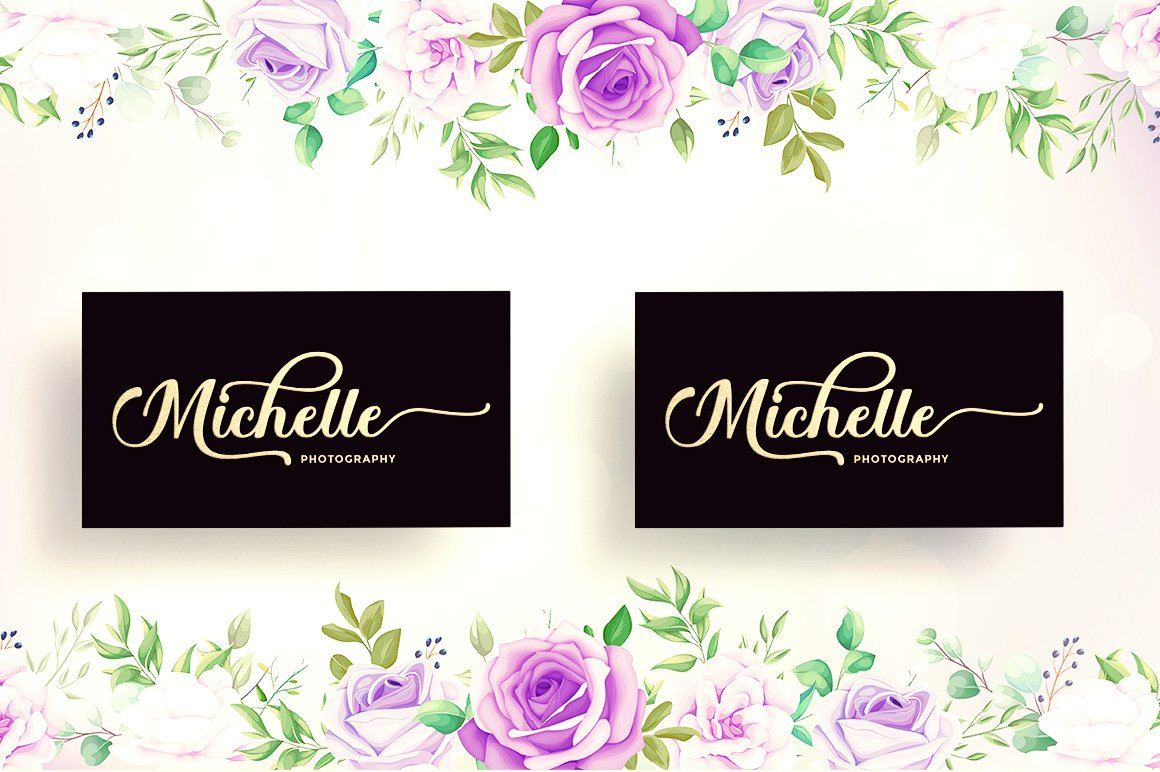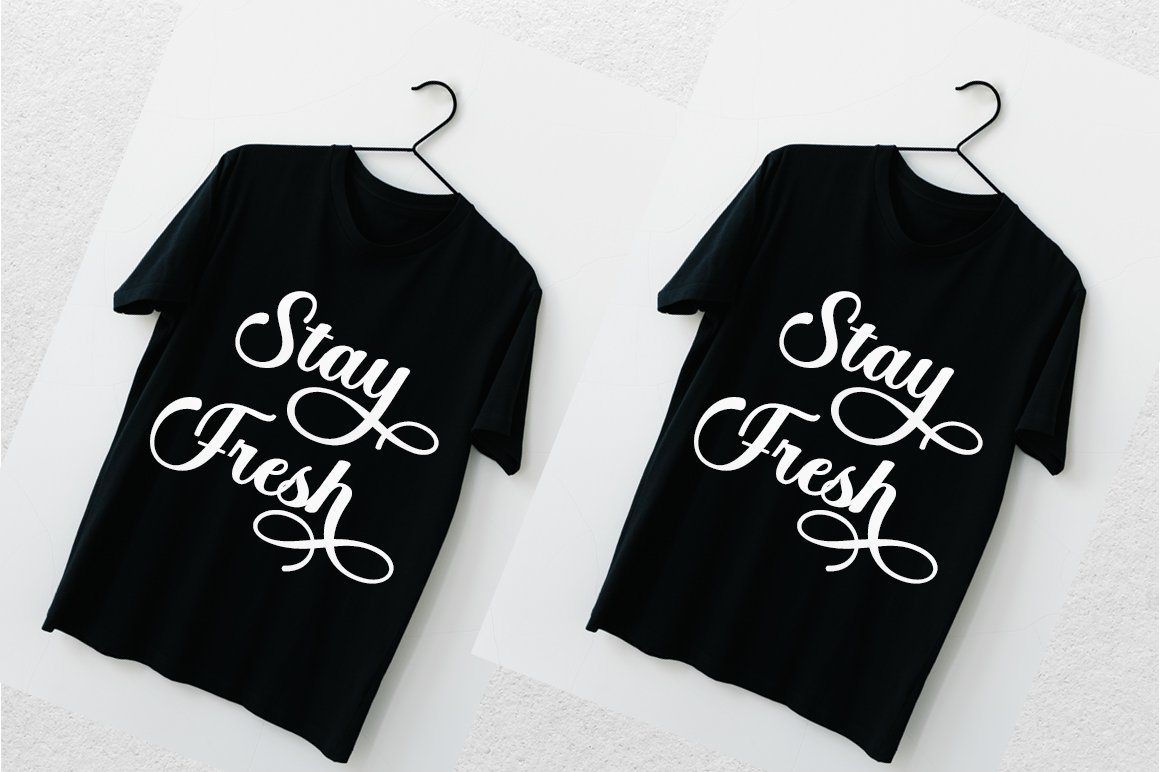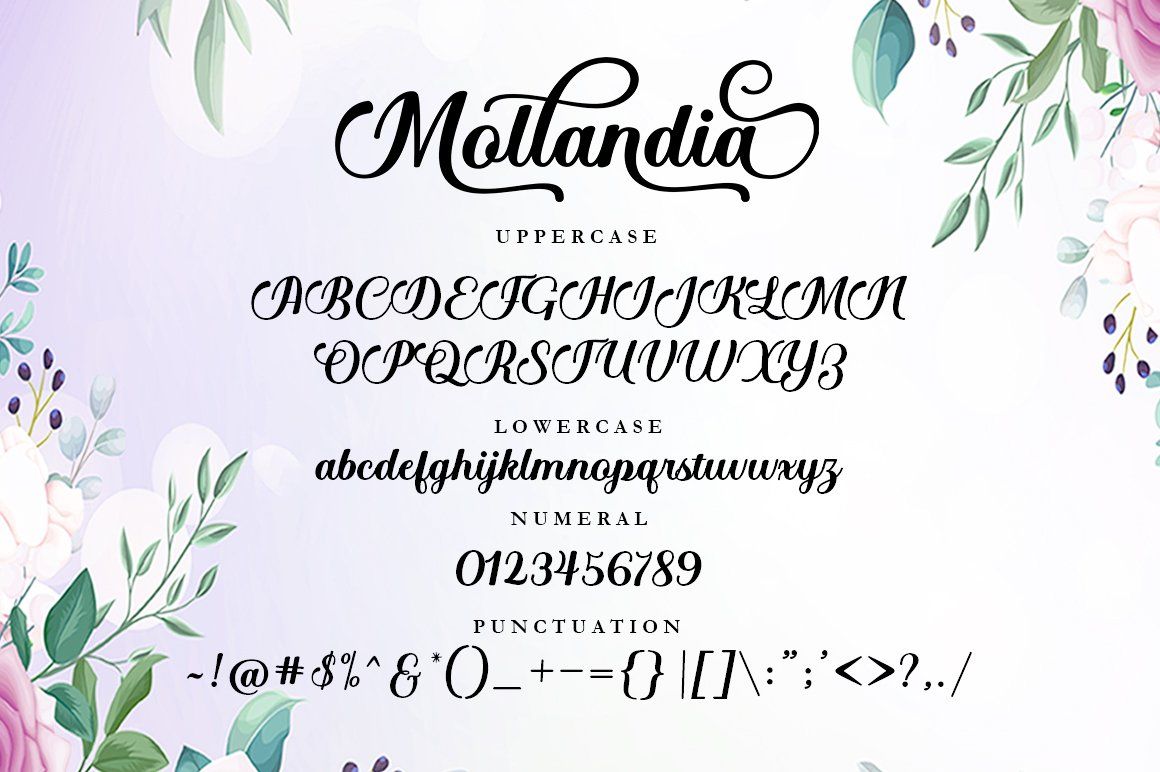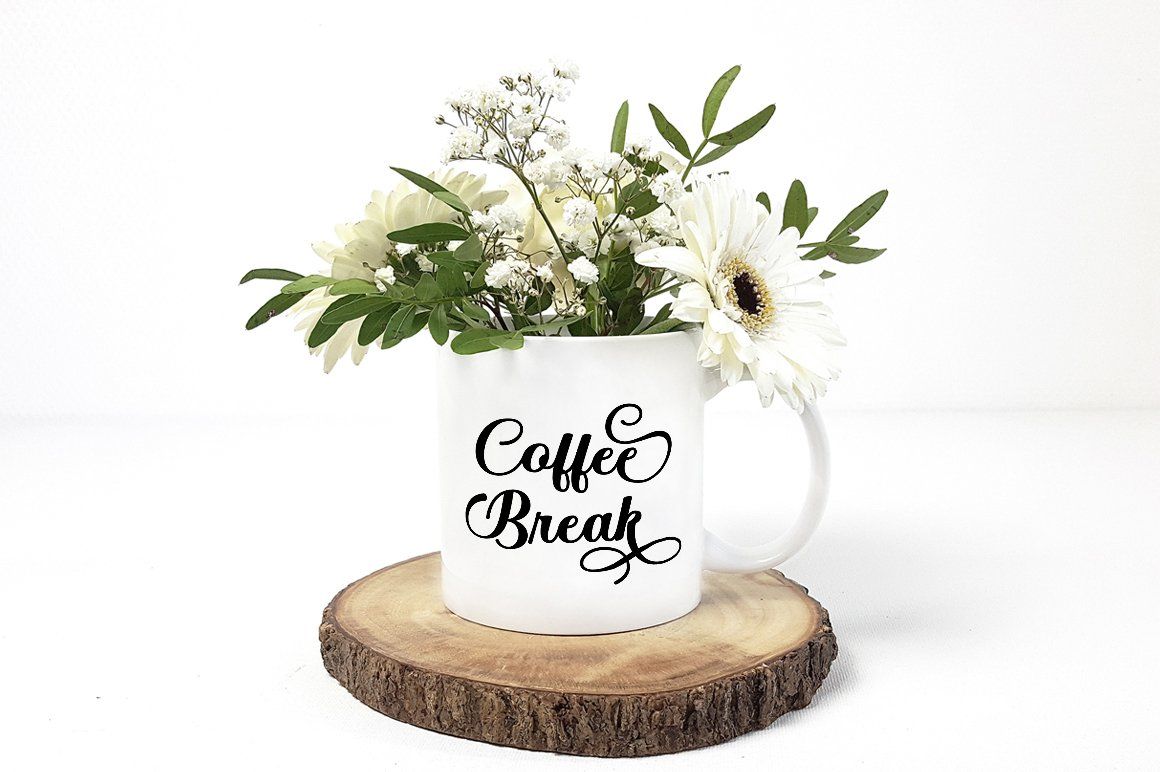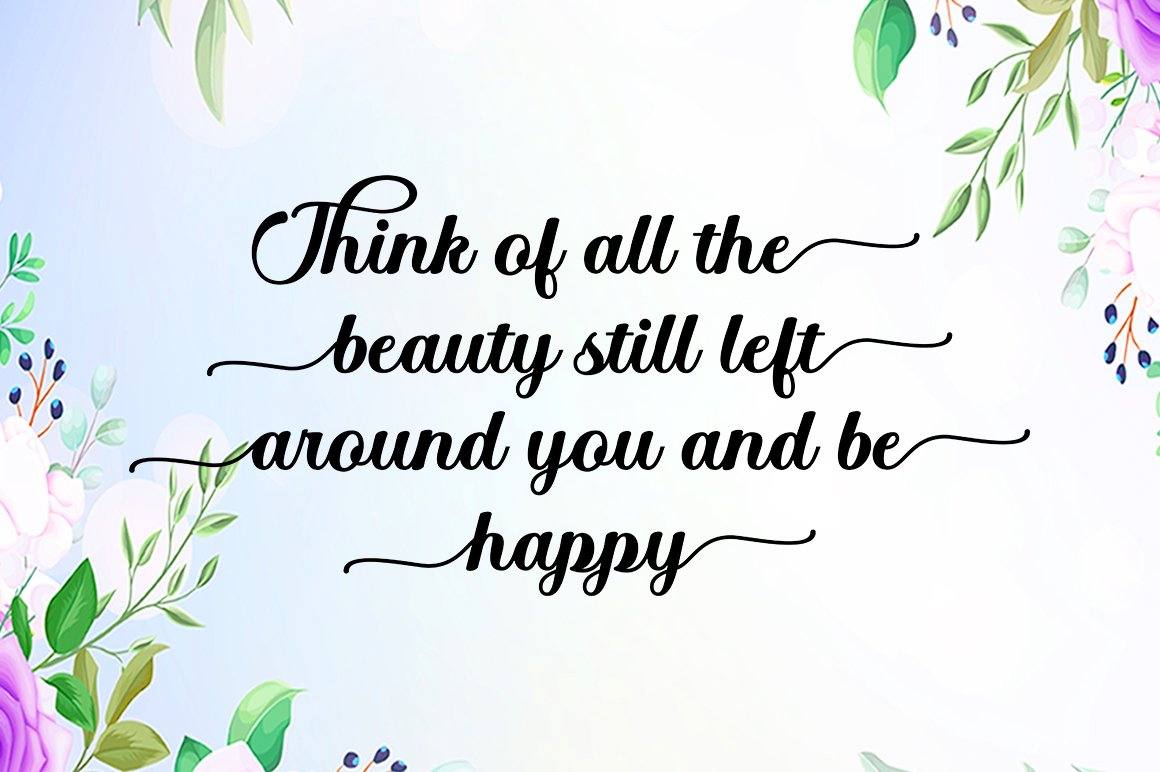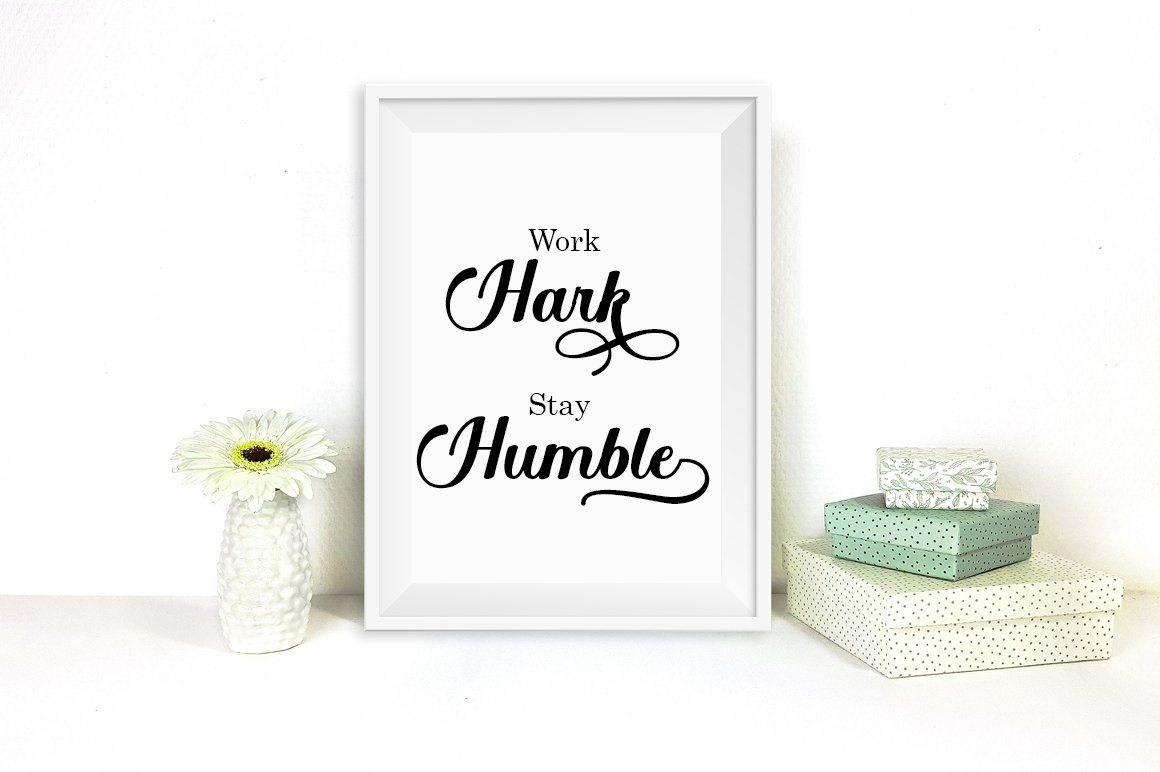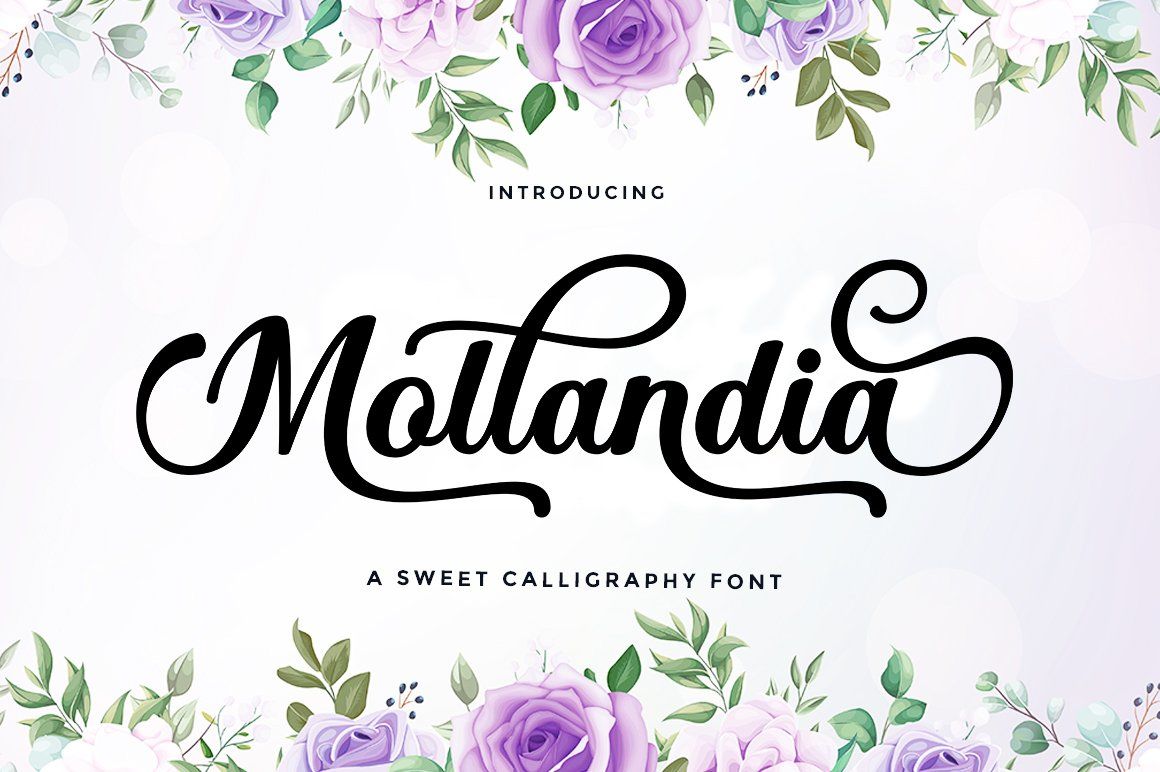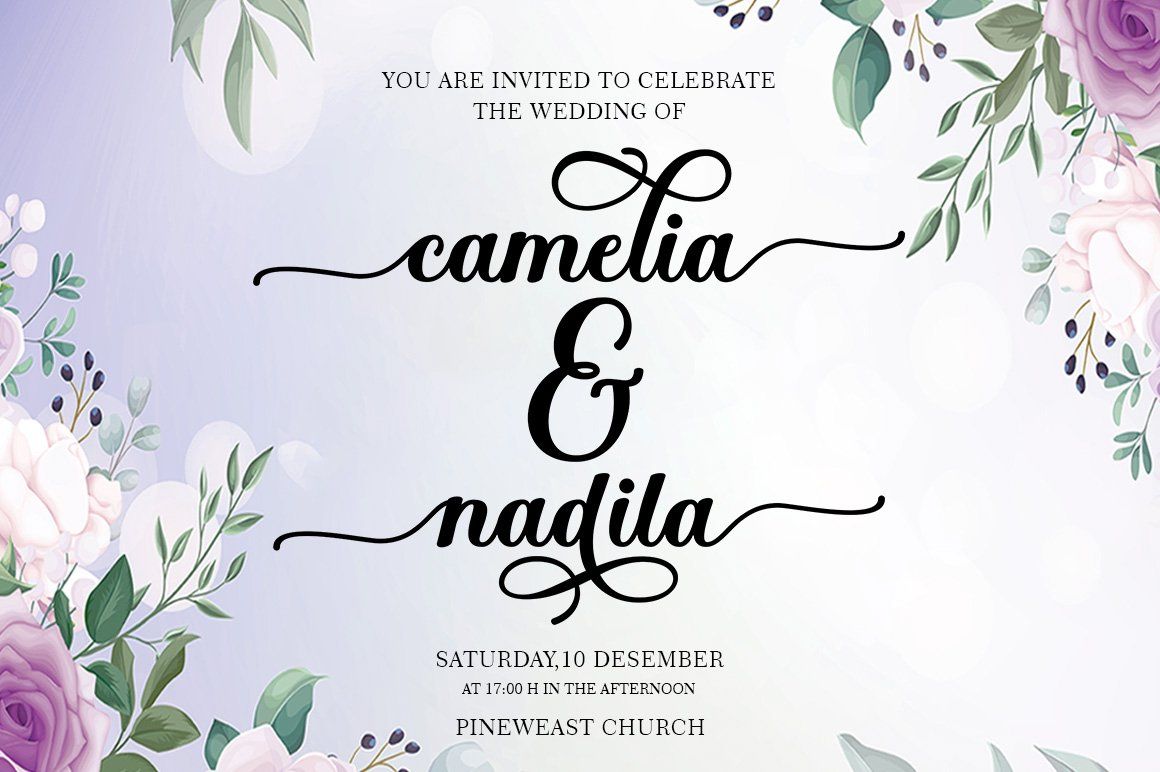
Mollandia
About Mollandia
Mollandia is a romantic typefaces. bold, elegant & fun vintage script font. Can be used for various purposes.such as logos, wedding invitation, t-shirt, letterhead, signage, news, posters, badges etc. Mollandia Script features 352 + glyphs and 161 alternate characters, ligatures, swash and multiple language support. Files included: Mollandia .otf Mollandia .ttf View all glyphs here: http://s28.postimg.org/7osts7ezx/All_Glyphs.jpg To enable the OpenType Stylistic alternates, you need a program that supports OpenType features such as Adobe Illustrator CS, Adobe Indesign & CorelDraw X6-X7. How to get access alternate glyphs from open type fonts: http://youtu.be/iptSFA7feQ0 There are additional ways to access alternates/swashes, using Character Map (Windows), Nexus Font (Windows), Font Book (Mac) or a software program such as PopChar (for Windows and Mac). How to access all alternative characters, using Windows Character Map with Photoshop: https://www.youtube.com/watch?v=Go9vacoYmBw Thank you!